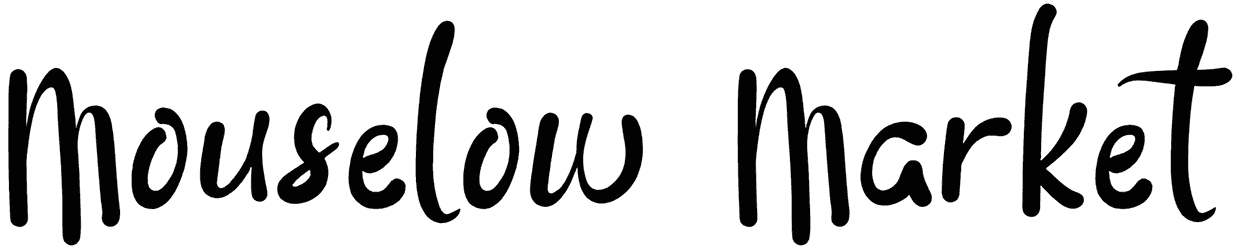
Mouselow Market Font
Suppose you want to get away from the digital world and create a personal and deep connection by designing something that existed before the internet. In that case, Mouselow Market can be one of the most popular choices.
So, if you want to avoid abstract or modern symbols and are looking for minimalistic and handwritten characters, take help from this script font for your wedding card or new logo design. Even without numbers, this handwritten font allows you to be seen.